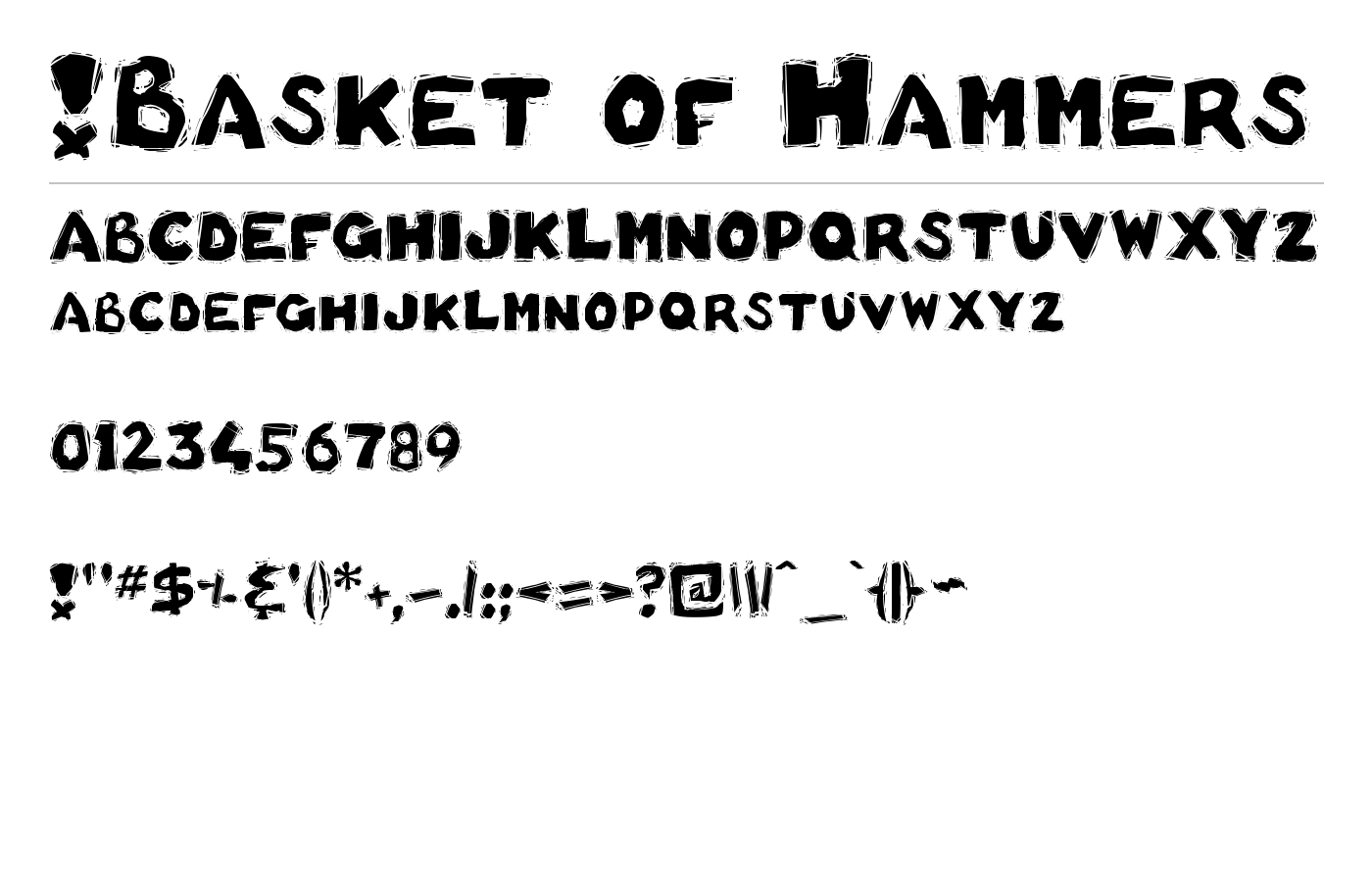
!Basket of Hammers is a bold, hand-drawn sans serif font with a rough and textured appearance that gives it a strong, edgy personality. Its irregular, chunky letterforms with uneven edges create a playful yet rugged vibe, making it perfect for creative designs that want to stand out with a raw, handcrafted feel. This font works well for posters, logos, and branding where a casual, energetic, and unconventional look is desired.
!Basket of Hammers Font
About !Basket of Hammers Font
| Font family | !Basket of Hammers Font |
| Designer | Choz Cunningham |